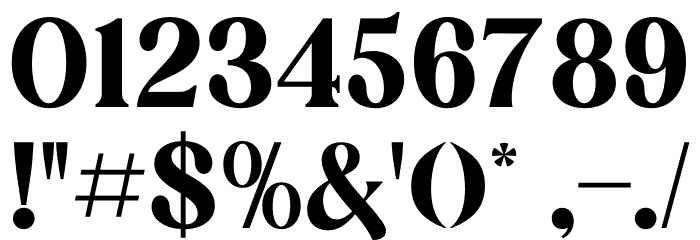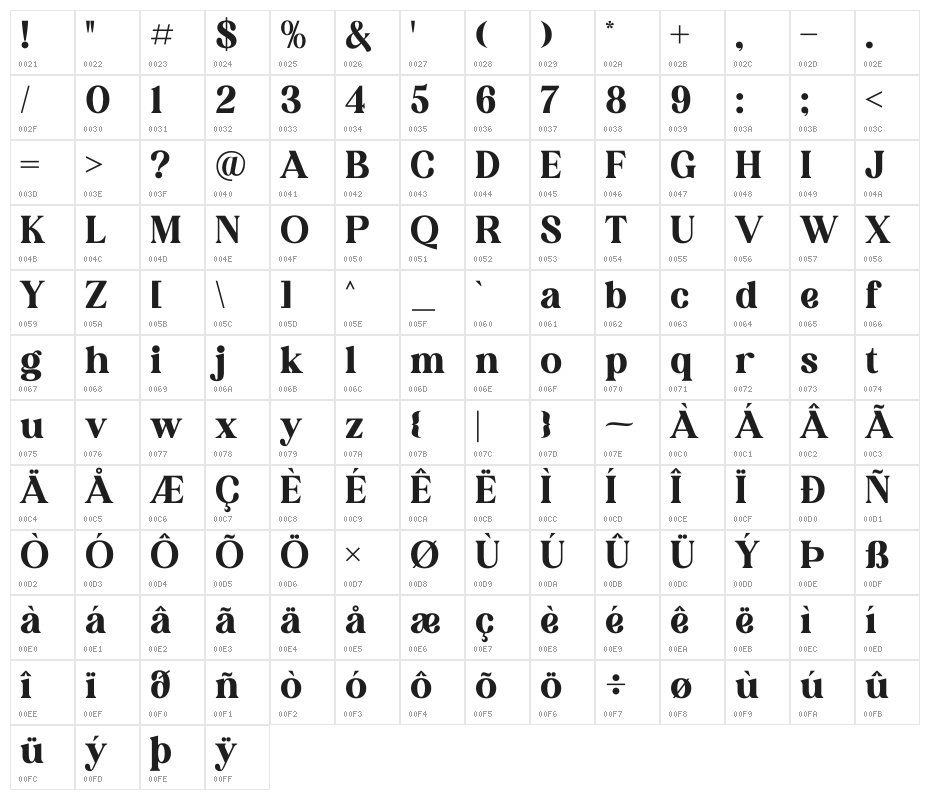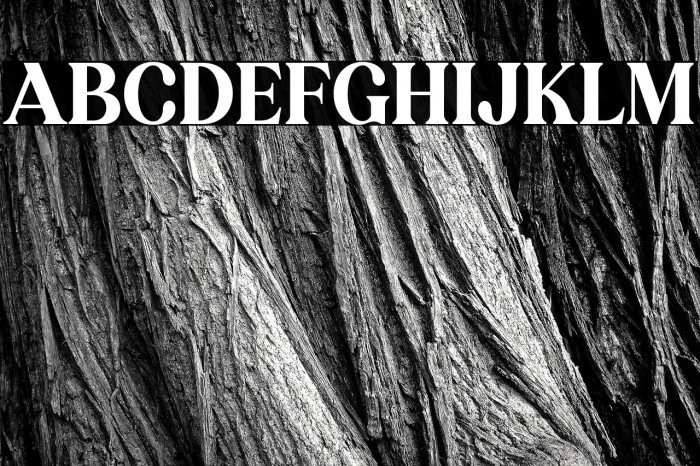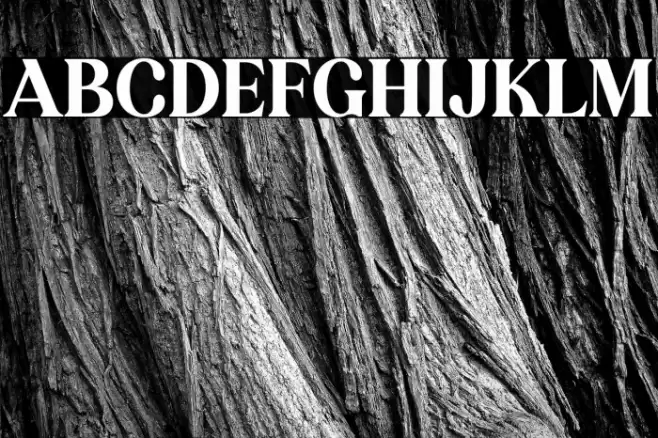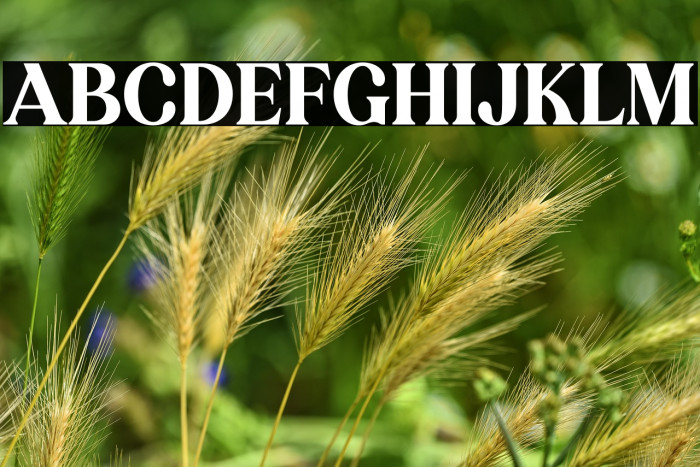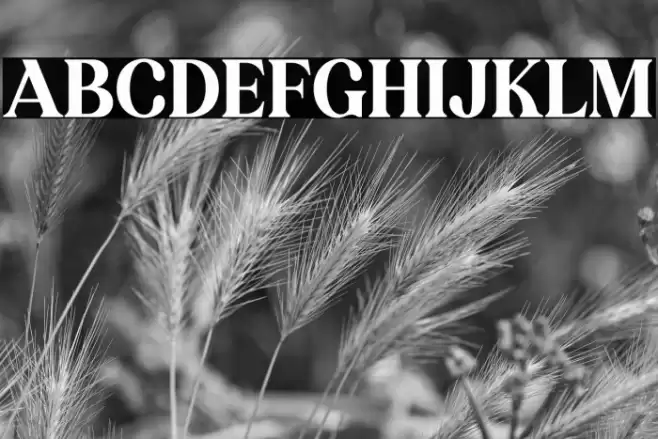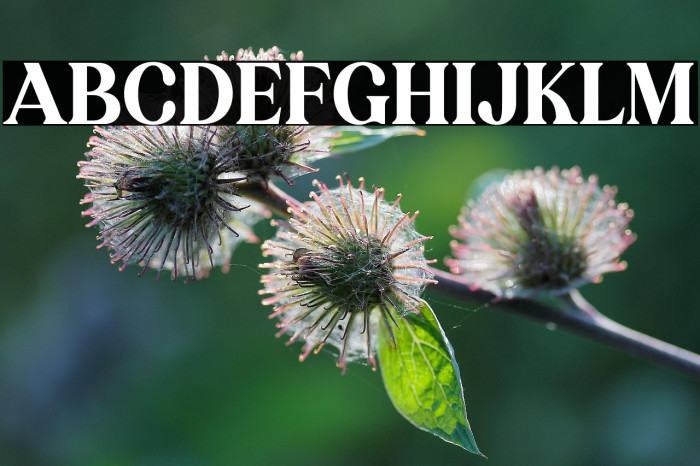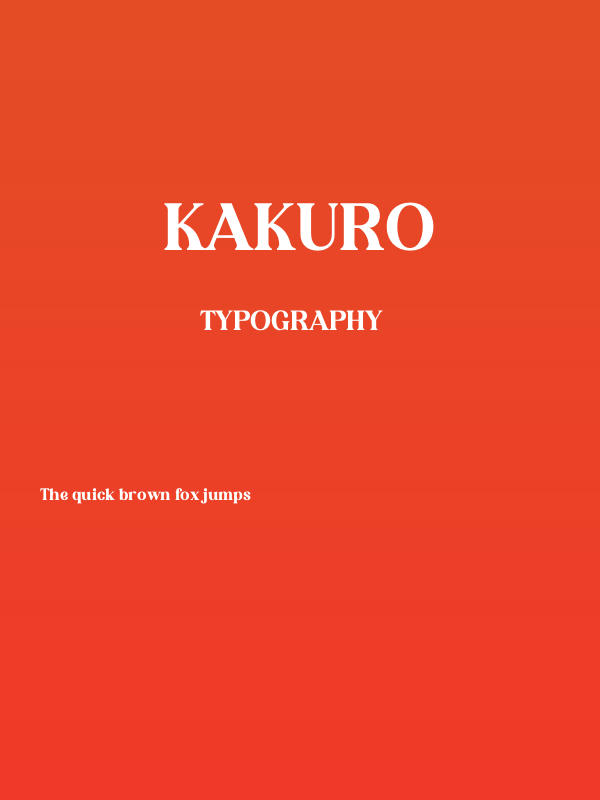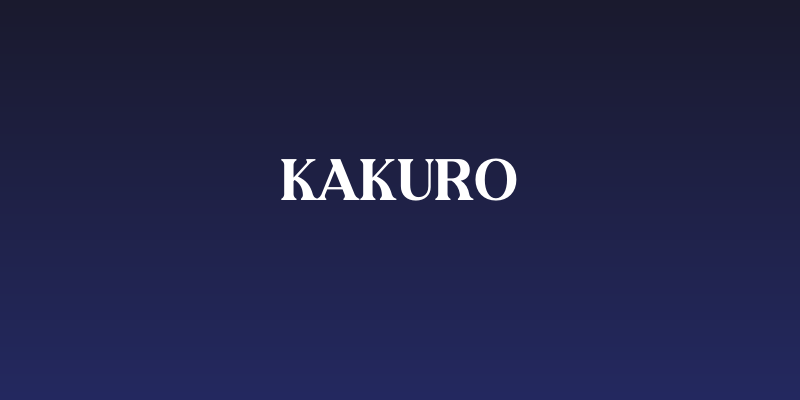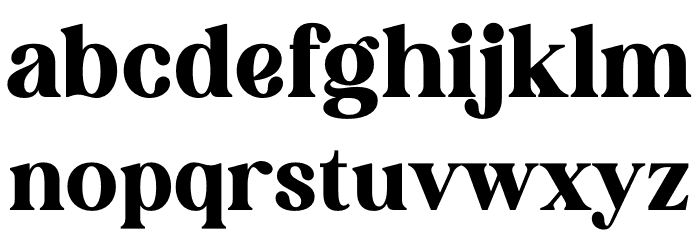
KAKURO Font
KAKURO Description
This font features a bold and commanding presence with its thick, strong strokes and high contrast between thick and thin lines. The serifs are pronounced, adding a classic and authoritative feel to the typeface. The uppercase letters are tall and imposing, while the lowercase letters maintain a consistent weight, providing a harmonious balance. The numerals are equally bold, ensuring visibility and impact. Special characters are designed with the same attention to detail, making them stand out. This font is ideal for making a statement, with its boldness and clarity ensuring that any text set in this typeface will be noticed.
| Proposed Projects | Ideal for headlines, posters, branding, and any project requiring a strong, authoritative typeface. |